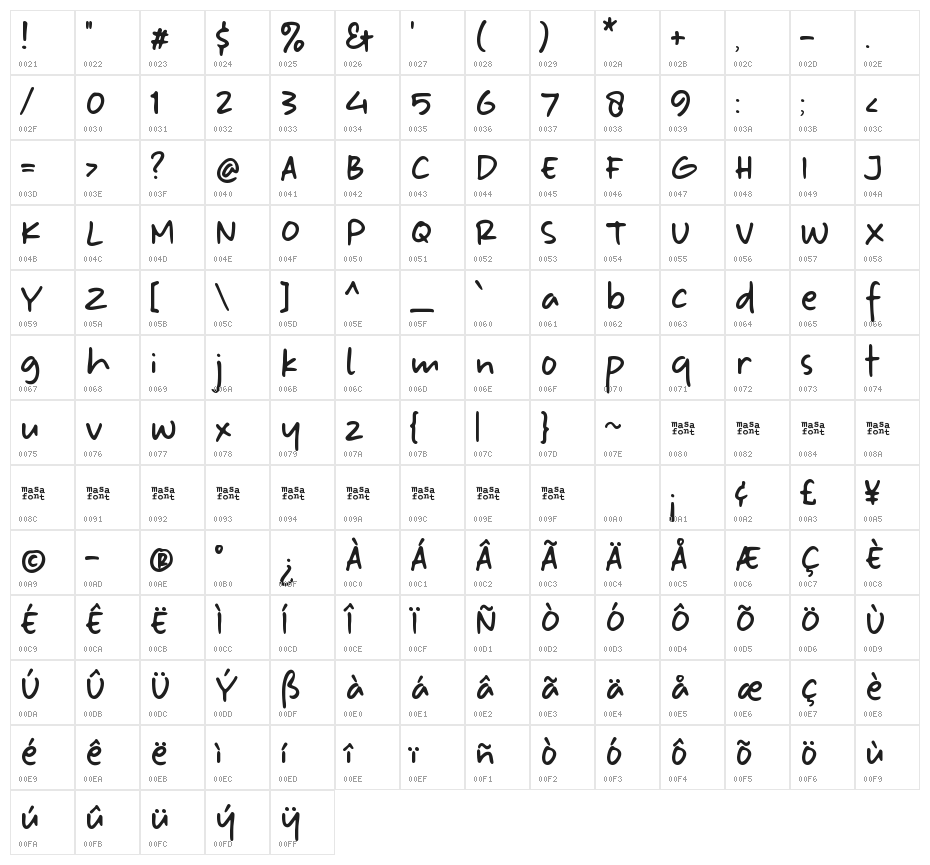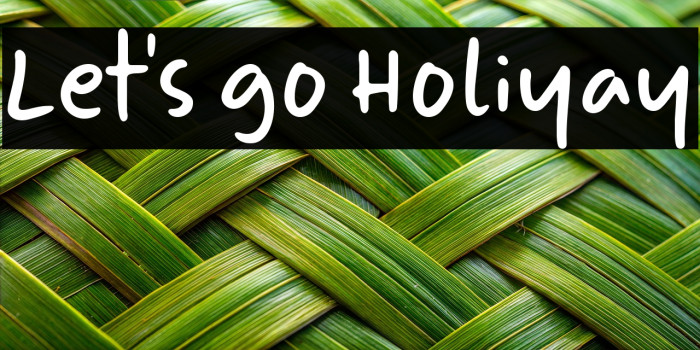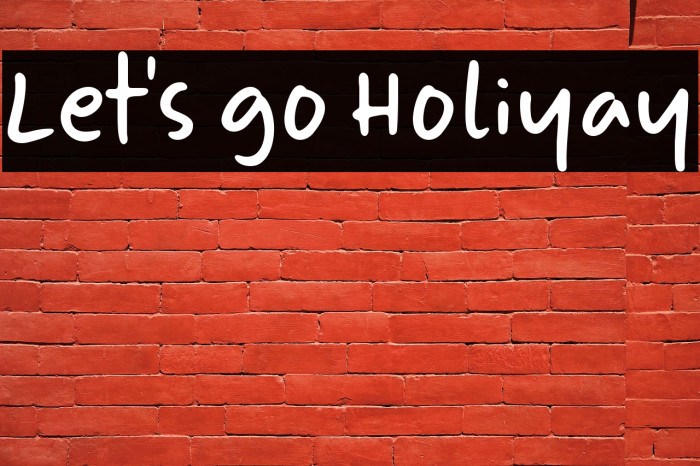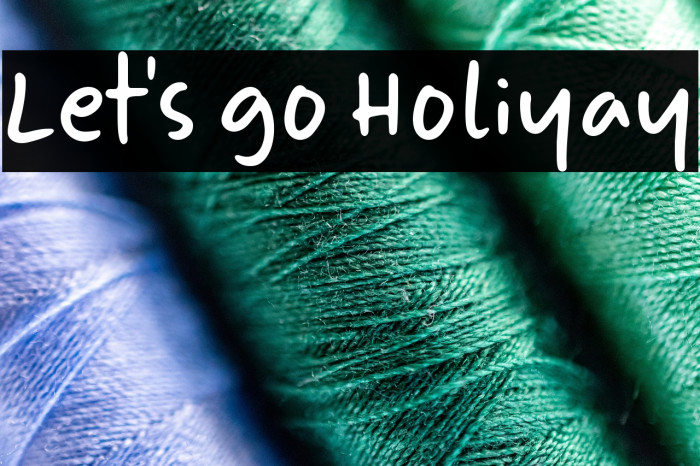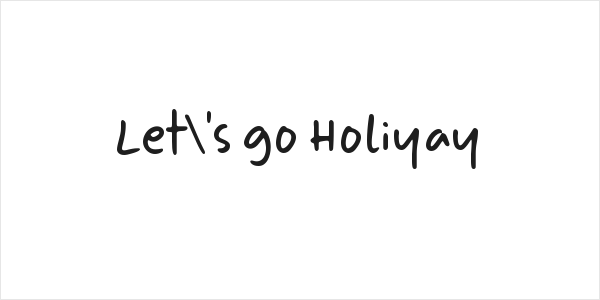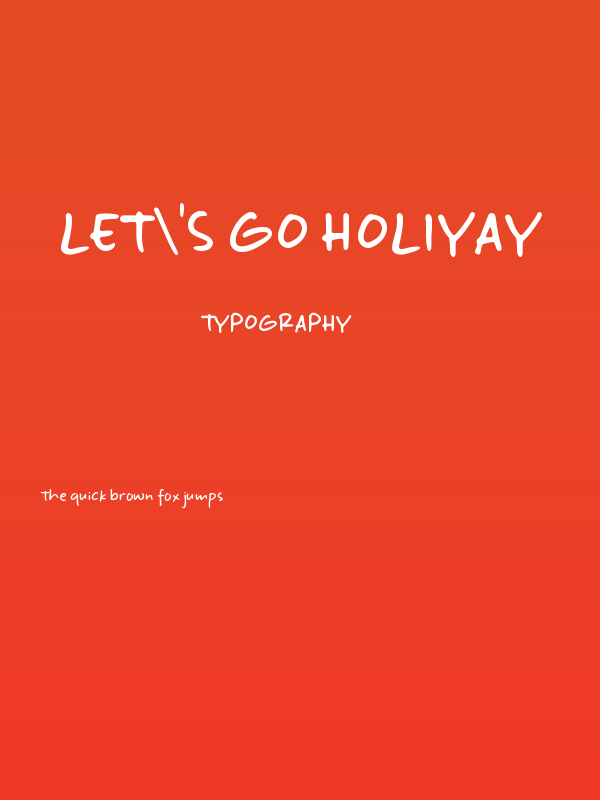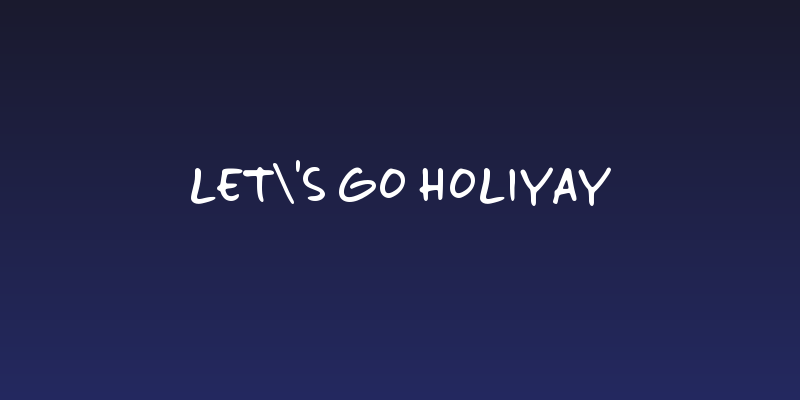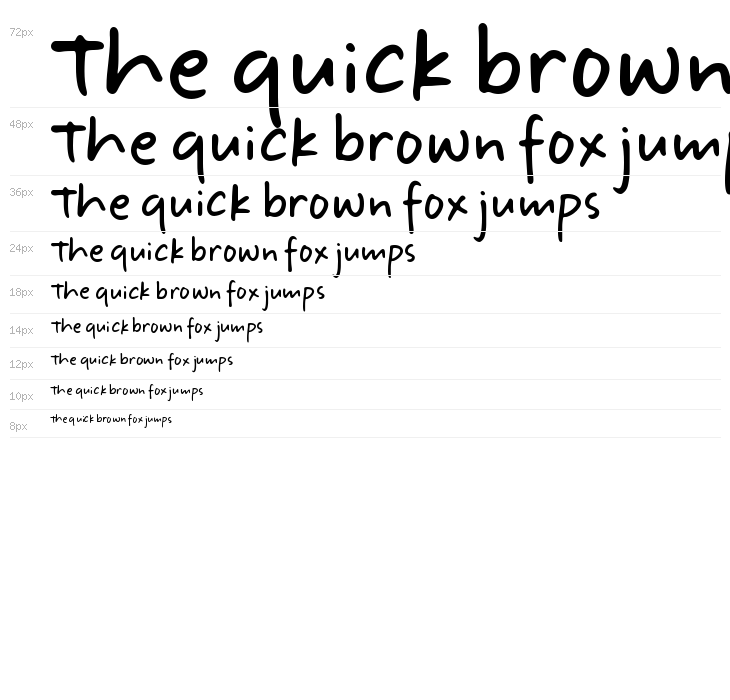
Let's go Holiyay Font
A playful, handwritten font with a casual and informal style, featuring rounded edges and a slightly uneven baseline.
| Use Case | Headlines, Informal text |
| Proposed Projects | Greeting cards, informal invitations, children's books. |